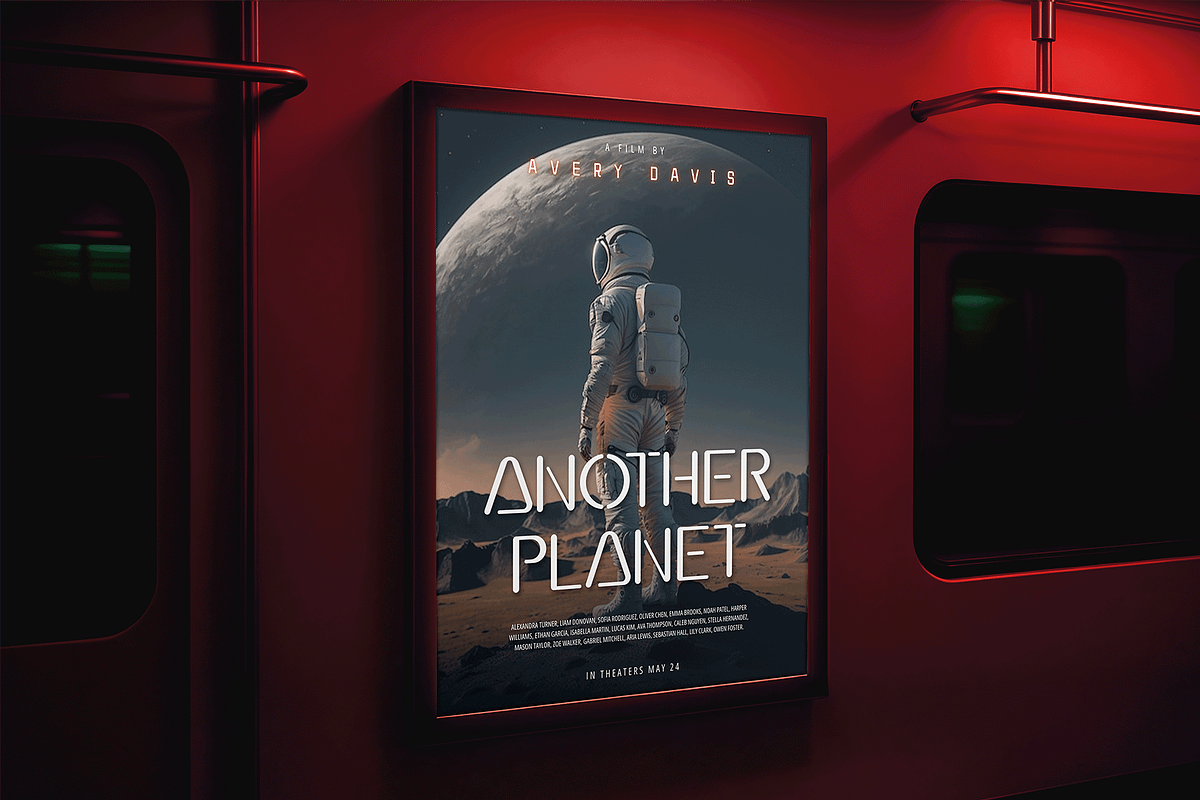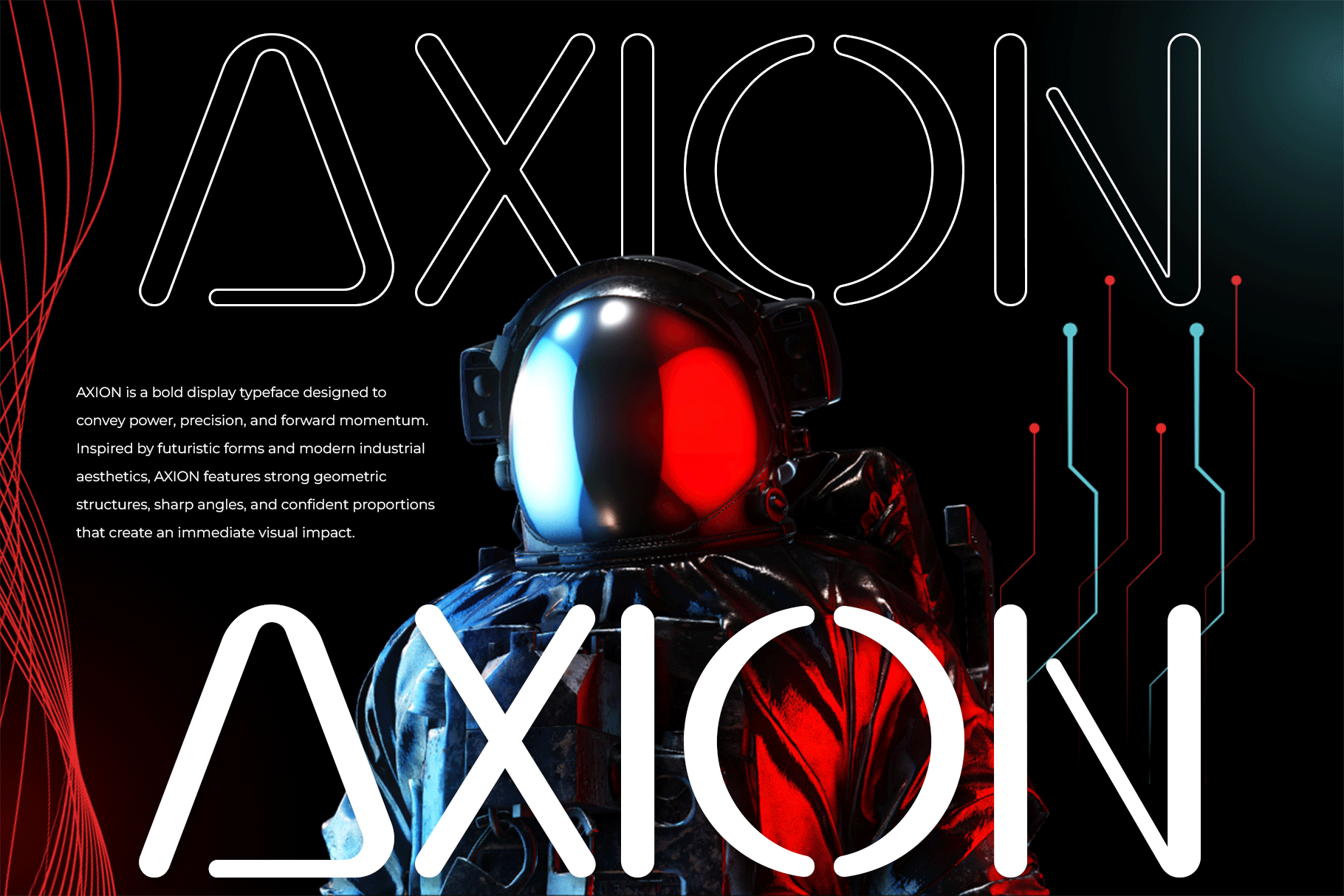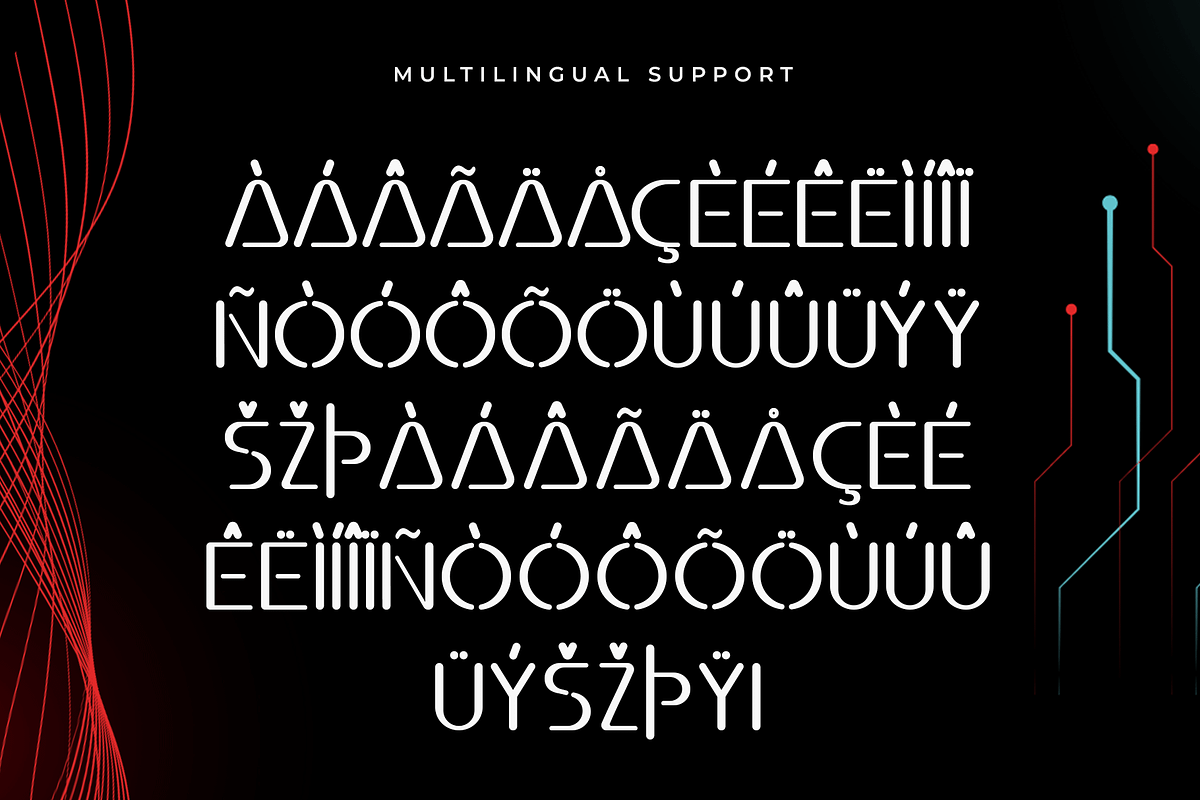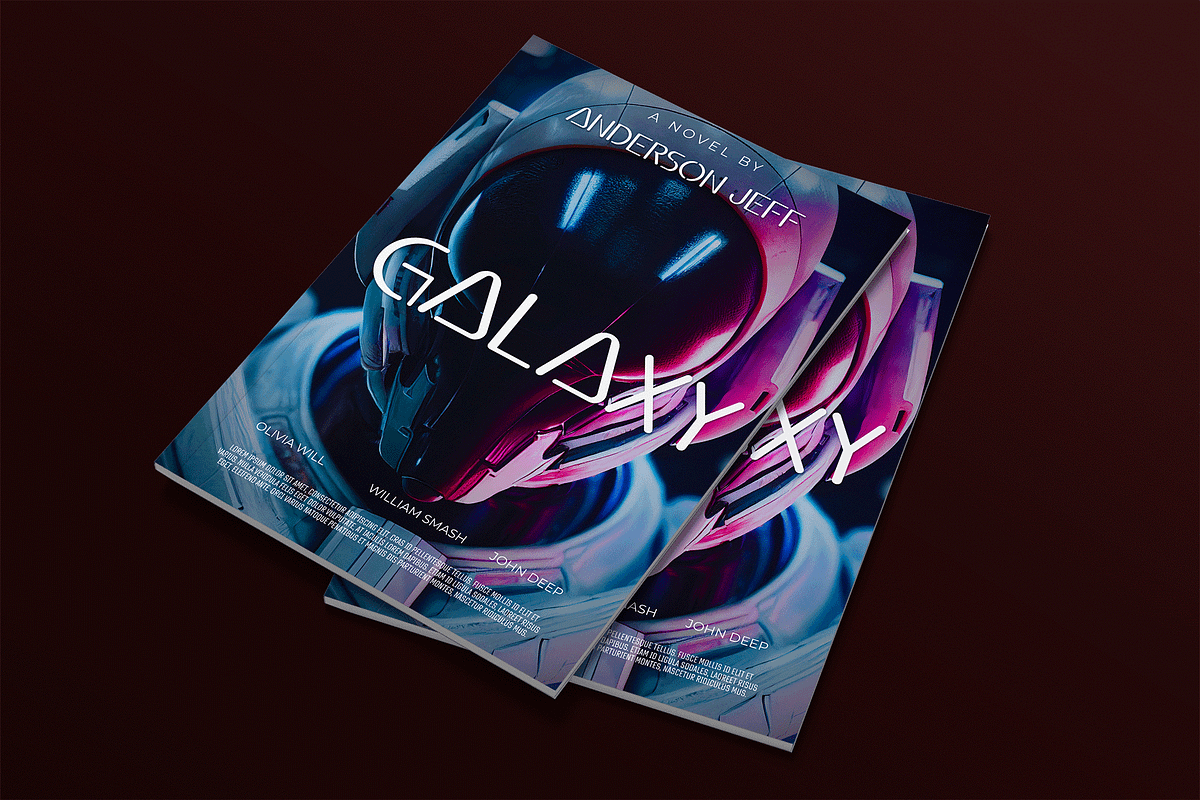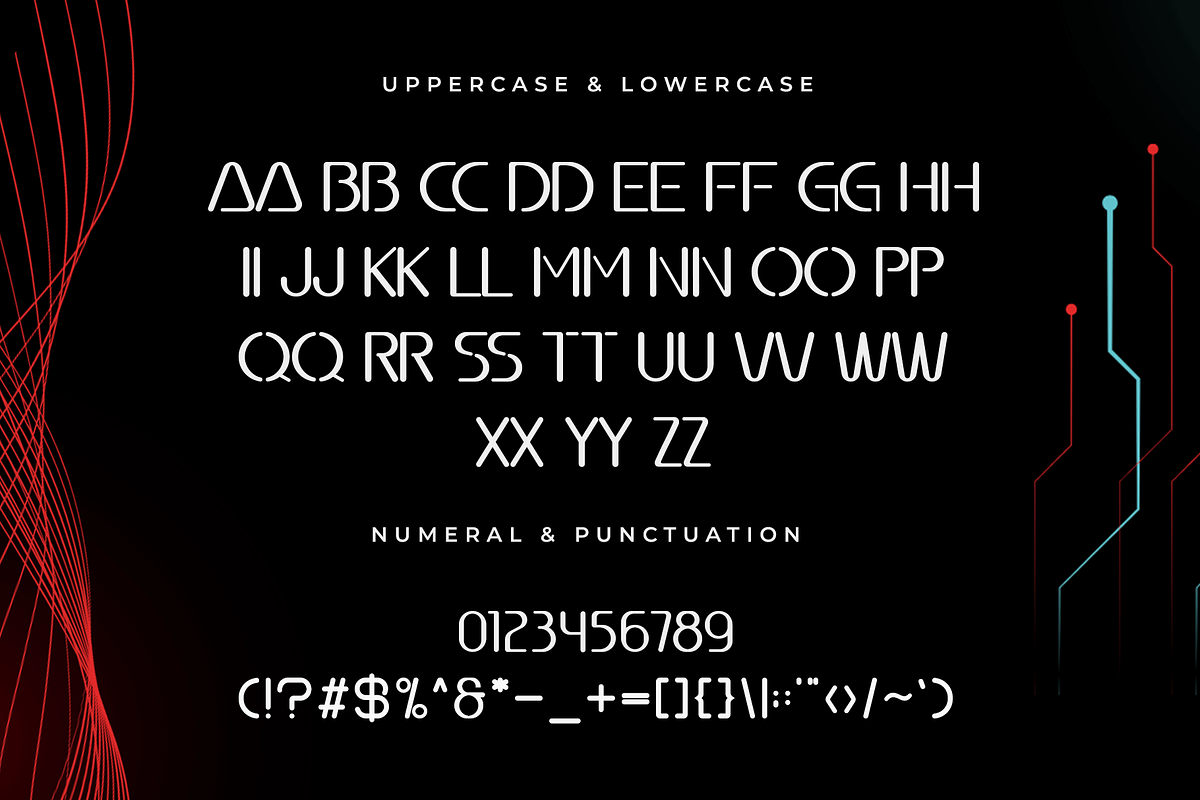
Axion - Bold Display Typeface
Introducing Axion, a bold display typeface created to deliver uncompromising strength and striking visual power. With its heavy strokes, confident geometry, and modern proportions, Axion is designed to dominate attention and make every headline unforgettable.
Axion includes uppercase and lowercase letters, numerals, punctuation, and multilingual support, offering flexibility for both digital and print applications. Whether you’re building a powerful brand identity or creating visuals that demand attention, Axion delivers clarity, confidence, and bold modern energy.